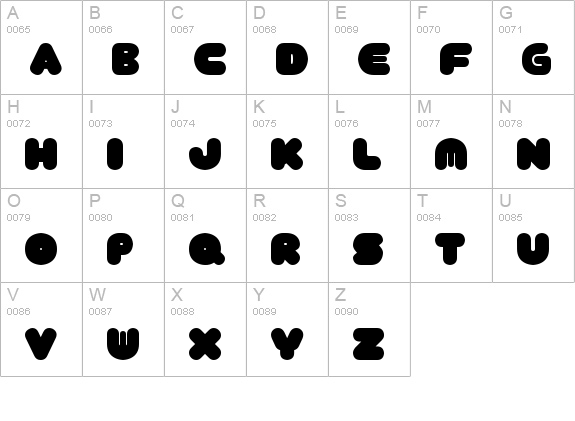
TANTOR Font Details
Introducing TANTOR, a captivating and versatile font that will instantly elevate your designs to new heights. With its elegant and timeless appeal, TANTOR effortlessly combines modern sophistication with a touch of vintage charm. Crafted with meticulous attention to detail, every curve and every stroke of TANTOR exudes a sense of refined craftsmanship. Its well-balanced letterforms and graceful lines create a harmonious flow, making it perfect for a wide range of design projects, from logos and branding materials to invitations, posters, and beyond. One of the most remarkable aspects of TANTOR is that it is freely available to download at FontsMarket.com. This means that you can access this exceptional font without any cost, allowing you to add a touch of elegance to your projects without breaking the bank. Whether you're a professional designer or a creative enthusiast, TANTOR offers endless possibilities to express your creativity. Its extensive character set includes uppercase and lowercase letters, numerals, punctuation marks, and a variety of special characters, ensuring that you have all the tools you need to craft captivating designs that stand out from the crowd. With TANTOR, you can effortlessly evoke a sense of sophistication and refinement in your designs. Its timeless appeal and versatility make it a go-to choice for projects of all kinds. So why wait? Download TANTOR for free at FontsMarket.com and unlock a world of design possibilities today.